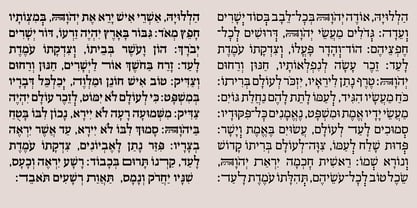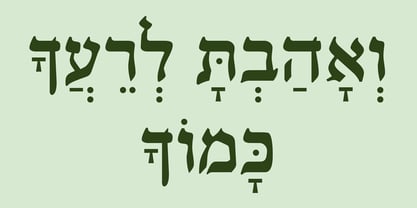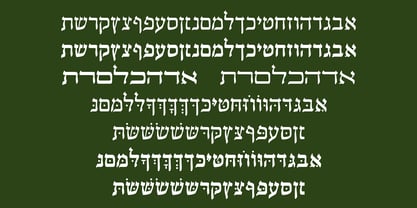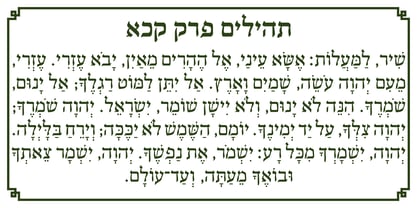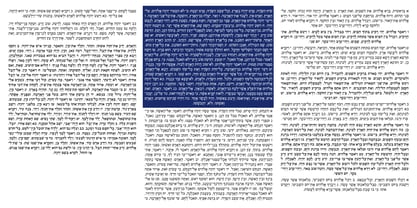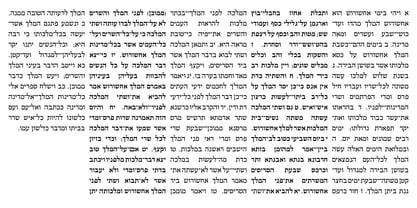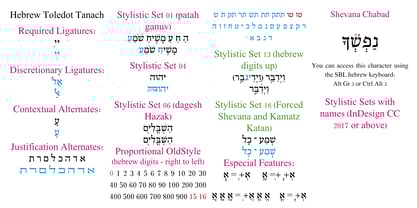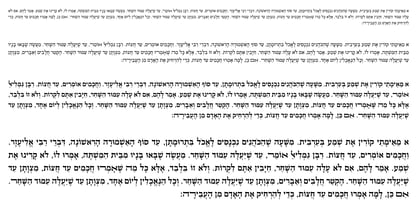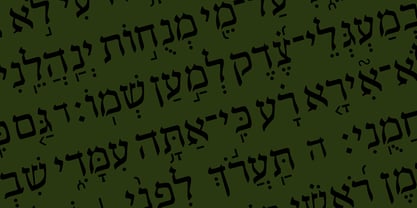
Hebrew Toledot Tanach
The Hebrew Toledot Tanach Font Family was designed by Sami Artur Mandelbaum and published by Samtype. Hebrew Toledot Tanach contains 2 styles and family package options. More about this family
This is Hebrew Sefardi Font.
This is a beautiful typeface for invitations, posters, cover books, Hebrew Bible, Siddurim, and more.
All diacritic marks for vocalization are present (Nikud), including Shevana, Kamats Katan, Cholam Chaser, and Dagesh Hazak.